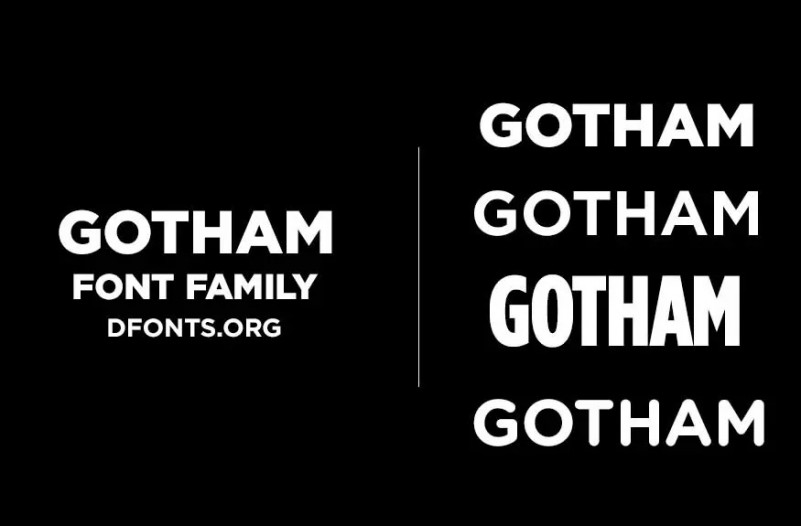
Gotham Font Family
Gotham Font is a Sans-serif font created by American designer Tobias Frere Jones and Jesse Ragan. It was released in 2000 with a broad design comprising wide x-height and founded by a New York foundry, Hoefler & Co. Since its release, it has been extensively used and is visible in different notable places. Want to make something surprising then combine this typeface with The Tropical Script Font a great script typeface with an amazing ligature.
It gained immense popularity after being used in Obama’s campaign of 2008. It contains an extended family of fonts comprising 8 weights, 4 widths, and a rounded version same as we see in Avenir font. If you want to get access to more than 5 families of Gotham Font, you need to purchase a license first. Furthermore, you can create many Gotham font logos by using Gotham Font Generator free of cost.
Usage of Gotham Font
There is a long list of places where this font has been used since its release. In 2008 it got immense popularity when it was used in Obama’s presidential speech campaign. Afterwards, many notable companies got their hands on this font. It is also featured in the men’s international magazine, GQ.
In 2004, it was highlighted on New York’s main building, Freedom Tower, that captured everyone’s attention. Wherever the font is used, it received huge admiration and popularity from everyone. You can also use this font for your website where you want to make the content prominent.
It comprises many styles, including Gotham Extra Light Italic, Gotham Book, Gotham Thin Italic, Gotham Book, and others. Furthermore, it contains different variations, including Gotham Rounded, Gotham Narrow, Gotham X-Narrow, Gotham Bold, and others.